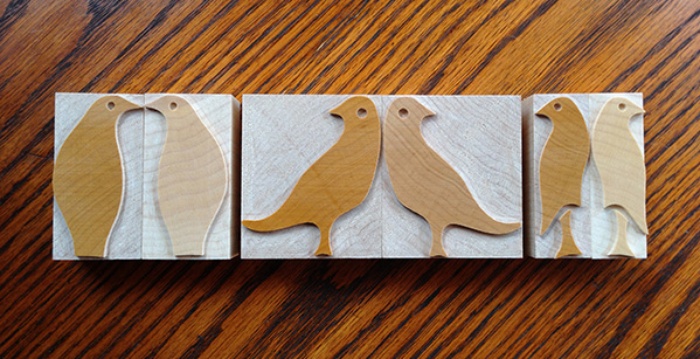
"The Birds"
No, this blog entry will not be about Alfred Hitchcock’s 1963 horror film masterpiece. In the film, the birds were menacing and murderous. That’s not our way here at Virgin Wood Type.
Instead, while Geri was perusing the letterpress bible, a 1912 edition of the American Type Founders (ATF) Specimen Book, she was struck by what she saw on pages 982-983 under the heading “Knickerbocker Ornates.” Amidst all the ornate floral designs were the elegant, simple lines of birds, and there toward the bottom were the elegant birds standing proudly without the distracting floral business. Geri fell immediately in love with them and decided she had to make them in wood type.
ATF offered them in 48 pt or 72 pt only. We wonder if they weren’t popular because 11 years later the 1923 edition of the ATF Specimen Book doesn’t include them. Believing the sensibilities of the 2014 letterpress printer to be more in tune with birds (see Portlandia’s “Put a Bird On It”), we are convinced that these wood type birds will “fly” off our trays.
Wanting to be clever, we bandied about some possible monikers, but common sense prevailed in the end. We live and work in New York state where the term “Knickerbocker” dates back to early Dutch settlers downstate in New Amsterdam, errrr, I mean New York City, so why not continue to use Knickerbocker? Perfect.